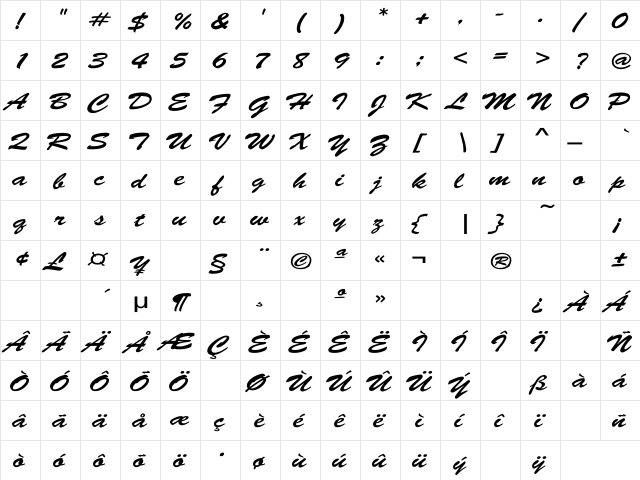
Brush-Script Wide Regular
Design Context for Brush-Script Wide Typeface
Brush-Script Wide flows with the natural rhythm of handwritten lettering, making it ideal for designs that call for warmth and personal expression.
Font Pairing: Combine Brush-Script Wide with a simple geometric sans for maximum contrast — the tension between flowing curves and clean structure is a classic typographic pairing.
Pro Tip: Pair Brush-Script Wide with a clean sans-serif for supporting text. The contrast between fluid script and geometric structure creates an elegant typographic hierarchy.